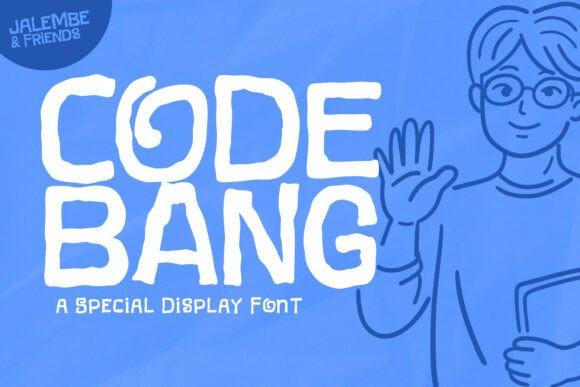
Code Bang: A Display Font That Feels Like a Thoughtful Pause
It was late afternoon, soft light filtering across my desk as I opened a new layout for a seasonal newsletter — one that gathers slow-living tips, gentle reflections, and simple recipes. The body text was set in a warm, readable serif; the captions in a crisp, neutral sans serif. But the header — the first thing readers would see — felt hollow. Not wrong, exactly. Just… uninvited. So I reached for Code Bang.
What struck me immediately wasn’t just its charm, but its quiet confidence. Code Bang is a modern display font with rounded terminals, open counters, and subtle bounce in its rhythm — like handwriting that’s been gently refined, not over-polished. It doesn’t shout. It leans in. Its lowercase ‘a’ and ‘g’ have friendly, single-story shapes; its capitals hold presence without stiffness. There’s warmth in its curves, clarity in its spacing, and a kind of editorial kindness in how it treats space around itself.
When Simplicity Carries More Weight
I used Code Bang for the newsletter header — “Spring Slowly” — at 48pt on a pale oat background. No shadow, no stroke, no extra styling. Just the font, centered, breathing. And it worked. Not because it’s flashy, but because it *settles*. In editorial design, especially for lifestyle blogs, coaching workbooks, or printable planners, tone matters more than ornamentation. Code Bang supports mood without demanding attention. It says, “This is worth your time,” not “Look at me.”
That same ease translated to other uses: a chapter opener in a digital magazine feature about mindful mornings; the title treatment on a recipe ebook cover (paired with a light, airy serif for the subtitle); even a delicate pull quote in a wedding guide — where elegance needed to feel human, not sterile. In each case, Code Bang anchored the layout emotionally before a single word was read.
Where It Lives Best — and Where It Steps Back
Code Bang is unmistakably a display font — designed for impact, identity, and intention. It thrives at larger sizes: blog headers (36–72pt), ebook covers (60–90pt), worksheet titles (24–40pt), and social media graphics meant to be scrolled past slowly. Its letterforms have enough character to hold up in print, yet remain legible on mobile screens when used thoughtfully — especially with generous line spacing and ample margin.
But it doesn’t pretend to be something it’s not. I tested it at 14pt in a dense paragraph. It blurred. At 10pt in a caption grid? Too soft, too sweet — the contrast collapsed. Code Bang isn’t built for body copy, footnotes, data tables, or formal reports. That’s not a limitation — it’s fidelity. A good display font knows its role: to frame, introduce, invite — not to explain, list, or instruct.
Pairing With Purpose
What makes Code Bang especially useful in real publishing workflows is how gracefully it pairs. I’ve layered it over Merriweather for long-form blog features — the serif’s gentle serifs grounding Code Bang’s playfulness. With Inter or Manrope, it creates clean contrast for digital magazine navigation: bold Code Bang for section titles, light sans for subheads and bylines. Even in a printable planner, using Code Bang for weekly headers alongside a modest monospace for time blocks adds visual rhythm without clutter.
The key is contrast with harmony — not matching, but complementing. Code Bang benefits from typefaces that offer structure, neutrality, or quiet authority. Avoid pairing it with other expressive fonts (like script or heavy geometric sans) unless you’re intentionally building high-contrast branding — and even then, test at actual size.
Practical Notes for Real Projects
Before dropping Code Bang into a client ebook or paid newsletter template, I always check what’s included. Does it offer stylistic alternates? (It does — subtle variations that soften or sharpen tone.) Are there true italics, or just slanted defaults? (True italics — helpful for emphasis without breaking voice.) Does it support extended Latin characters? (Yes — suitable for English, Spanish, French, and most Western European languages.) And crucially: is the license clear for commercial use, PDF embedding, and digital downloads? (It is — with standard desktop and webfont options, plus clear terms for templates and printables.)
I also test export behavior. In InDesign, it renders cleanly in PDFs — no glyph substitution surprises. In Canva or Figma, it holds weight at headline sizes, though I avoid using it in auto-resizing text boxes where scaling might compress spacing. For SVG exports (like social banners), I outline when needed — but usually, the native font works fine.
A Quiet Kind of Confidence
There’s a tendency in editorial design to reach for fonts that feel “safe” — neutral, predictable, widely licensed. Code Bang isn’t safe. It’s considered. It asks you to slow down, choose deliberately, and trust that simplicity — when well-shaped — carries emotional resonance. It’s become my go-to for moments where the content itself is tender: a coaching workbook on boundary-setting, a printable journal for grief reflection, a digital zine about rest.